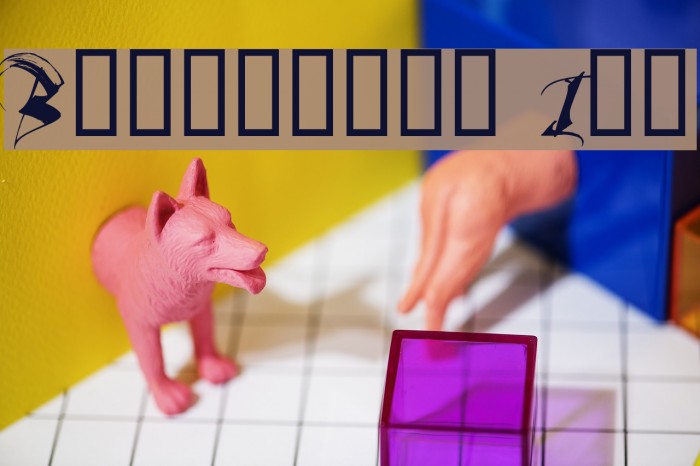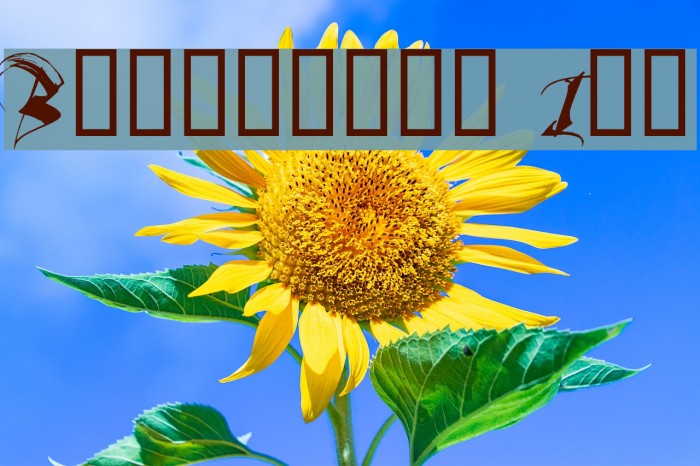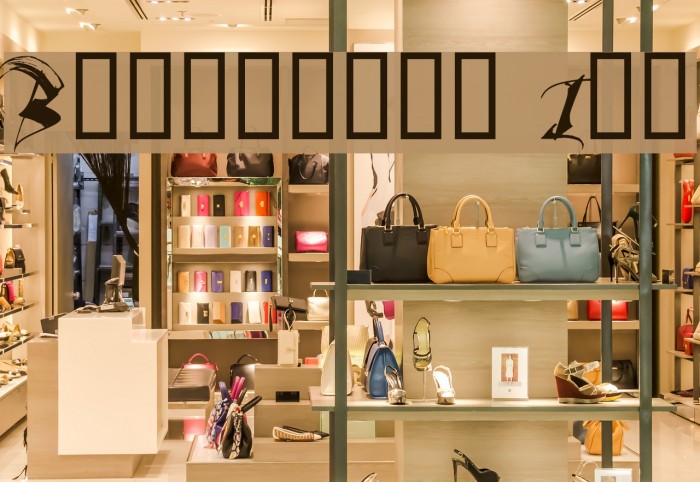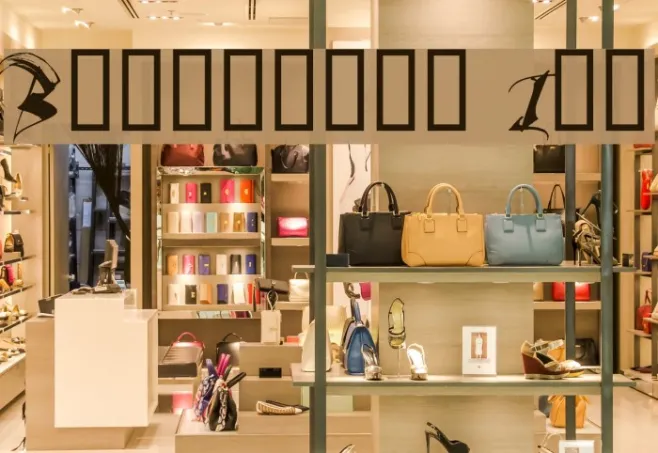
Beautiful Ink Font
This font exudes a dynamic and artistic flair, characterized by its flowing, calligraphic strokes that mimic the fluidity of ink on paper. The uppercase letters are bold and expressive, with sweeping curves and sharp angles that create a sense of movement and elegance. The absence of lowercase letters and numbers suggests a focus on decorative and headline use. The special characters are not present, emphasizing the font's primary function as a display typeface. Its unique style makes it ideal for projects that require a touch of sophistication and creativity, such as invitations, posters, and branding materials.
A dynamic, calligraphic display font with bold, sweeping strokes.
- Proposed Projects: Ideal for invitations, posters, branding, and any project requiring an artistic touch.
- Overall Style: Artistic, Elegant
- Use Case: Headlines, Decorative text